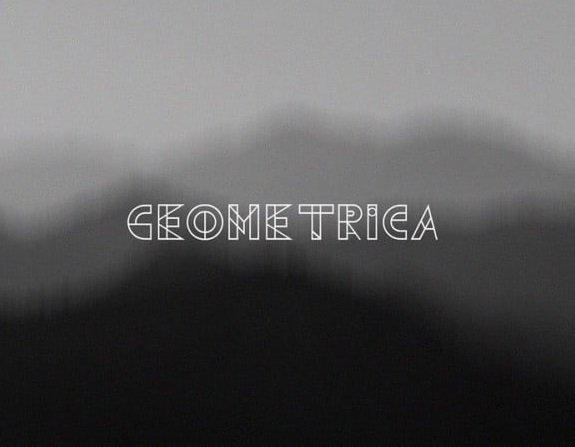
Geometrica Display Font
Geometrica Display Font is have used basic geometrical shapes such as circle, square and triangle. Made from font designer named Rizal Mstk. A free display typeface inspired by geometric shapes and their combination. The family comes in Light and Regular weights and perfectly fits for posters, headlines and other artworks.